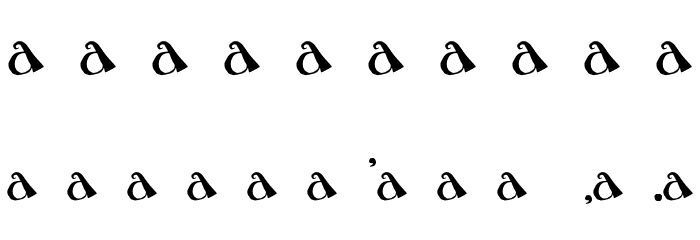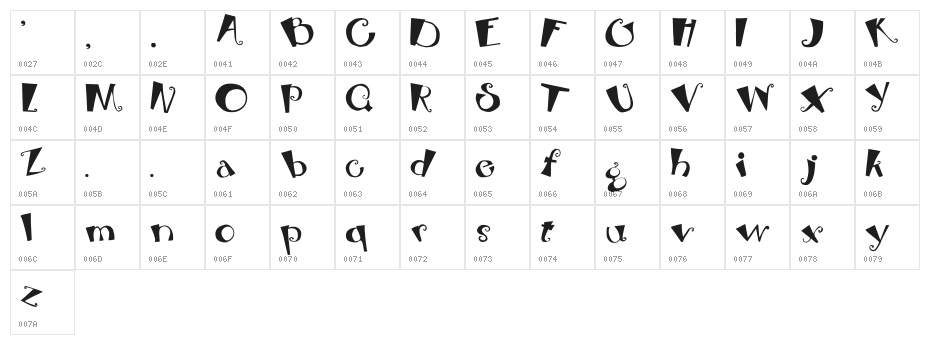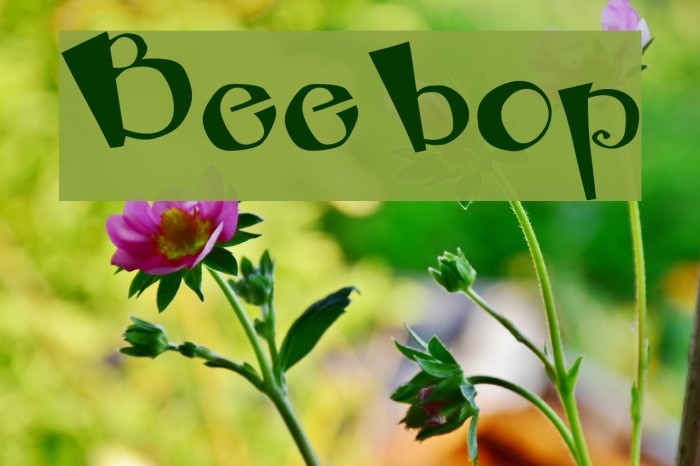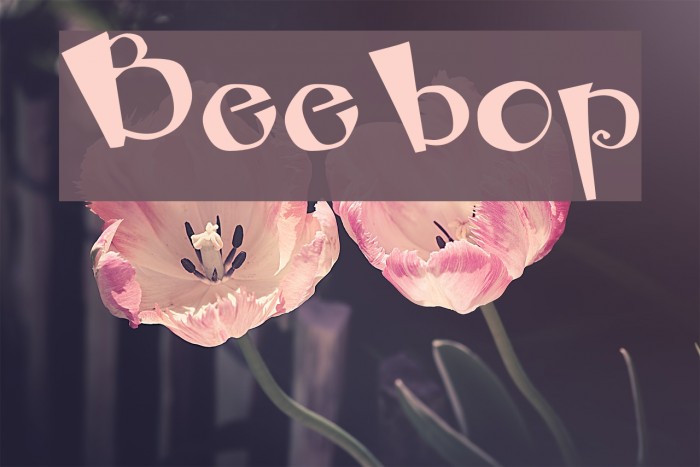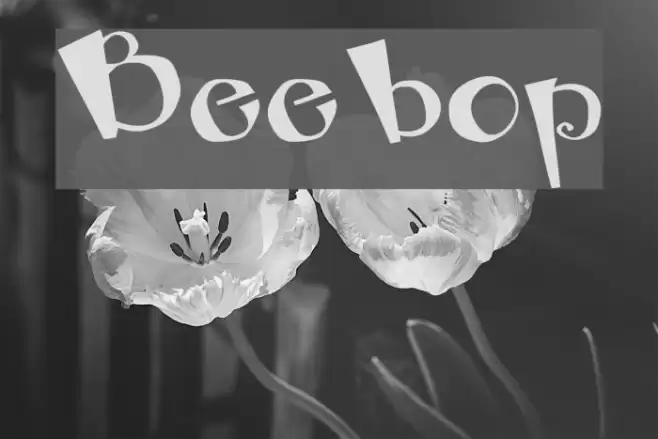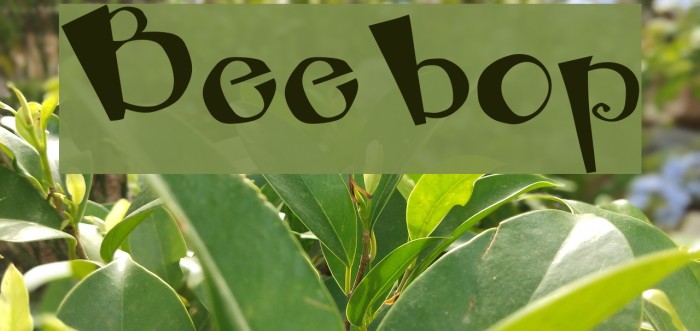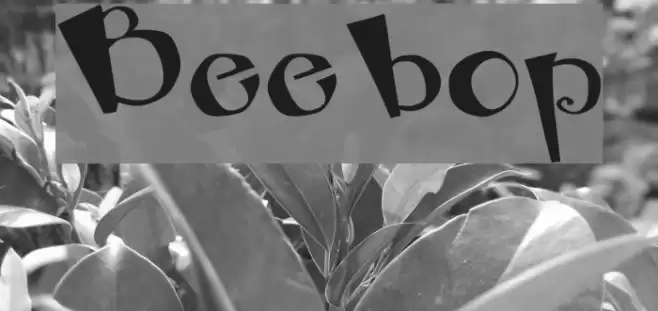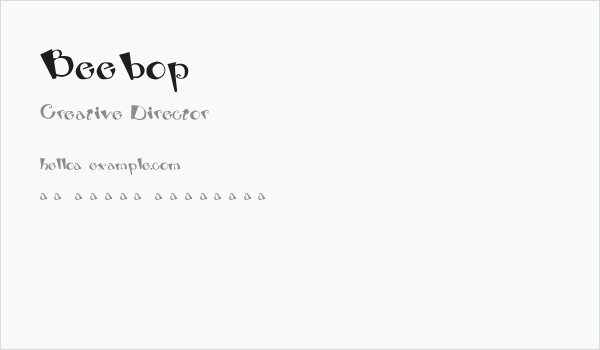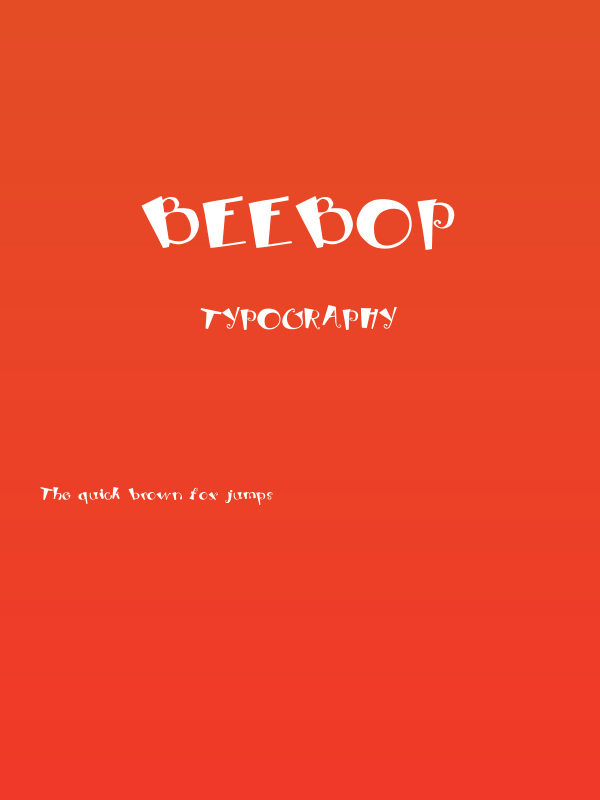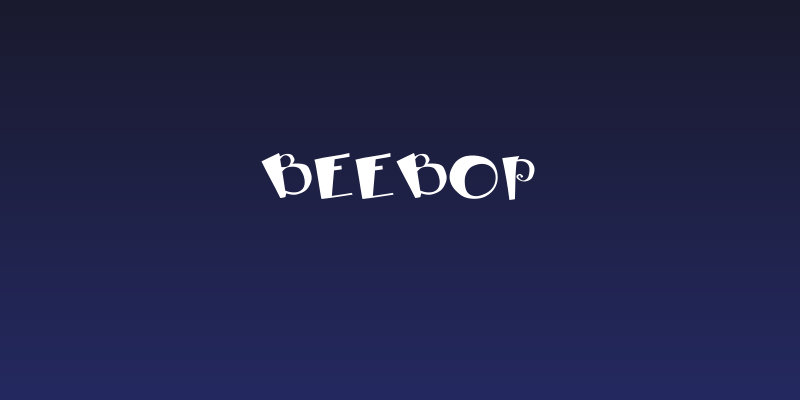
Beebop Font
Beebop Description
This whimsical and playful font features a unique blend of quirky, exaggerated shapes and bold strokes. Each character has its own personality, with unexpected twists and turns that add a sense of fun and creativity. The uppercase letters are particularly distinctive, with some characters leaning or curving in unusual ways. The lowercase letters maintain this playful style, with a mix of rounded and angular forms. The numbers and special characters continue the theme, offering a cohesive and lively appearance. This font is perfect for projects that require a touch of humor and individuality.